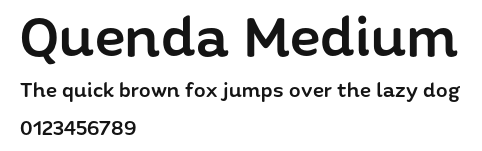
Quenda Medium Preview
• Font Name: Quenda Medium
• Designer: Marc Lohner
About Quenda Medium.otf
Quenda Medium.otf is a modern, elegant sans-serif font designed for ultimate readability and visual harmony. Perfect for branding, headlines, web design, and print materials.